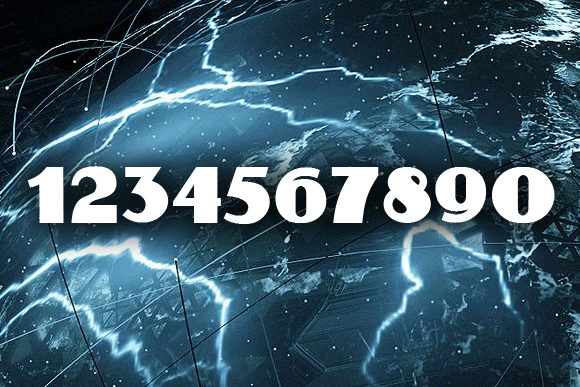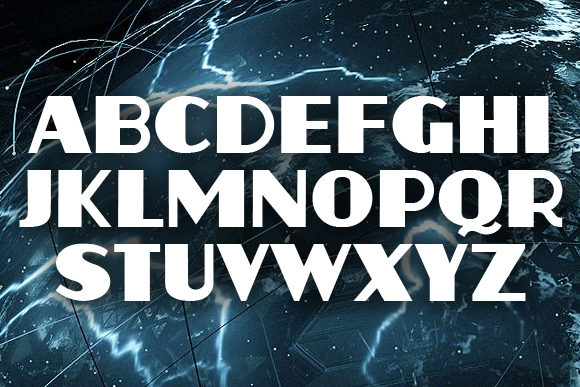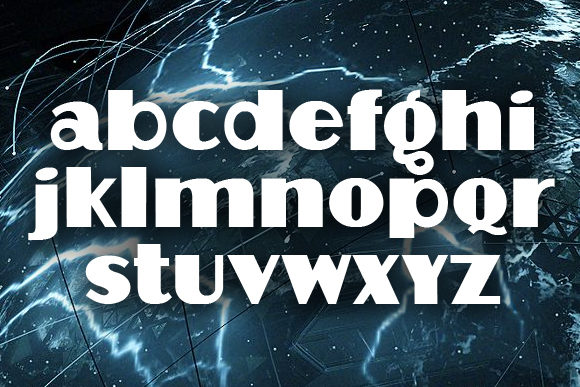
Introduction to Protocol Font
Protocol is a bold and chunky display font with a cool vibe.
It will turn any design idea into an eye-catcher .
Key Features of Protocol Font
Why Choose Protocol Font?